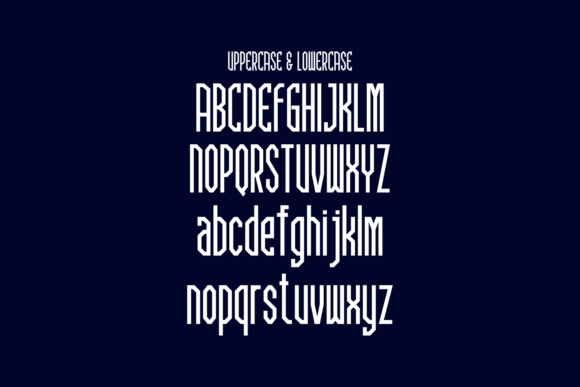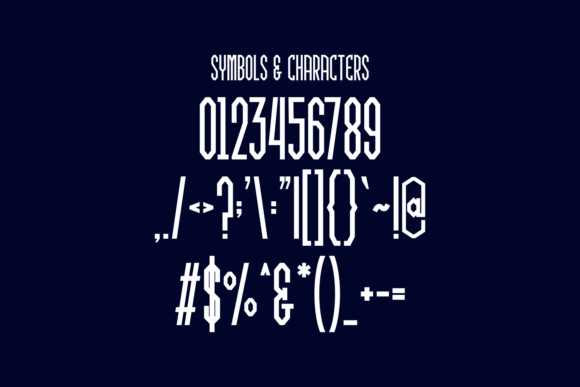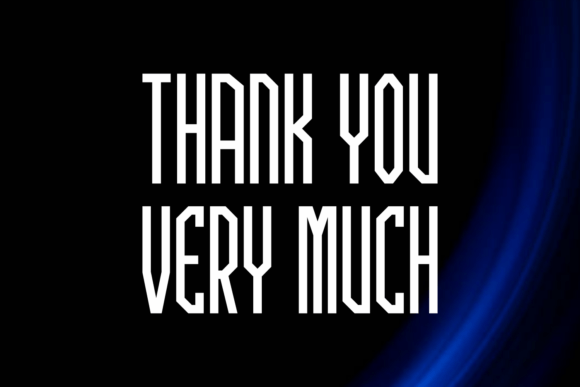
Introduction to Kaiseng Font
Have you ever been working on a creative project, pouring your heart and soul into it, only to be stuck on finding the perfect font to bring it all together? You know that feeling when you finally stumble upon that one special font that takes your design to the next level?
That’s exactly what we’re excited to introduce you to – the Kaiseng Font. This incredibly unique display font is a game-changer for designers, offering a high-quality design resource that can elevate your creative ideas to new heights.
Key Features of Kaiseng Font
- High-quality, unique font design suitable for creative projects, offering a distinct aesthetic.
- Perfect for designers and artists working on creative projects, such as graphic design, digital art, and typography-based art.
Honest Review: Kaiseng Font
As a designer, I’m always on the lookout for high-quality design resources to elevate my creative projects. The Kaiseng Font has caught my attention, and I’m excited to share my honest review.
What works well: ✨ The Kaiseng Font offers a unique blend of modern and traditional elements, making it a great addition to any design project. The font is available for free download, which is a major plus. The transparent background is also a great feature, allowing for seamless integration with other design elements.
The Kaiseng Font is a versatile design resource that can be used for a wide range of creative projects, from branding to typography. The font is well-designed and easy to use, making it a great option for designers of all levels.
Limitations: ⚠️ While the Kaiseng Font is a great resource, it may not be suitable for projects that require a lot of customization. The font is available in a limited range of weights and styles, which may limit its versatility.
- Great for creative projects
Using Kaiseng Font in Creative Projects
The Kaiseng Font is a high-quality design resource ideal for various creative projects. You can use it in graphic design, digital art, or even web design. Its transparent background makes it perfect for overlaying text on images or videos.
Tips for Getting the Most Out of Kaiseng Font
For optimal results, use the Kaiseng Font in combination with high-quality images or backgrounds. Experiment with different font sizes, colors, and styles to create visually appealing designs.
Common Use Cases for Kaiseng Font
The Kaiseng Font is suitable for various design projects, including logos, business cards, brochures, and social media graphics. Its versatility makes it a popular choice among designers and creatives.